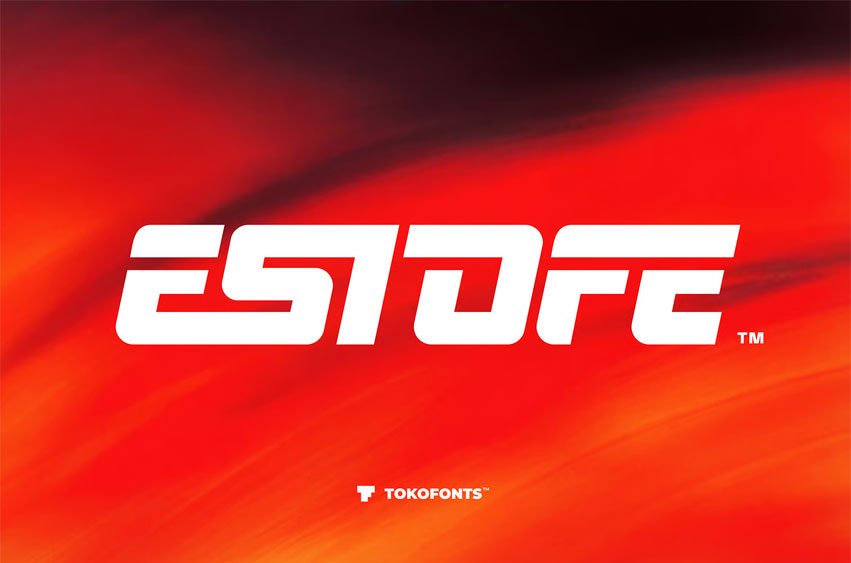
Estofe Font is a bold sports display font designed to deliver power, speed, and athletic attitude in modern sports visuals. With strong letterforms and a dynamic sporty feel, Estofe is perfect for sport branding, racing concepts, and gym-focused designs that demand high impact. Its athletic character works seamlessly across football, basketball, baseball, soccer, hockey, and golf visuals, giving every layout a bold and competitive edge.
Engineered for performance-driven design, Estofe excels in fitness campaigns, race event graphics, tournament posters, and energetic sports marketing. The bold construction ensures excellent readability while maintaining a fast, aggressive look suited for multi-sport environments. Whether used for racing identities, gym promotions, or athletic branding systems, Estofe delivers confident sporty typography built for action and intensity.